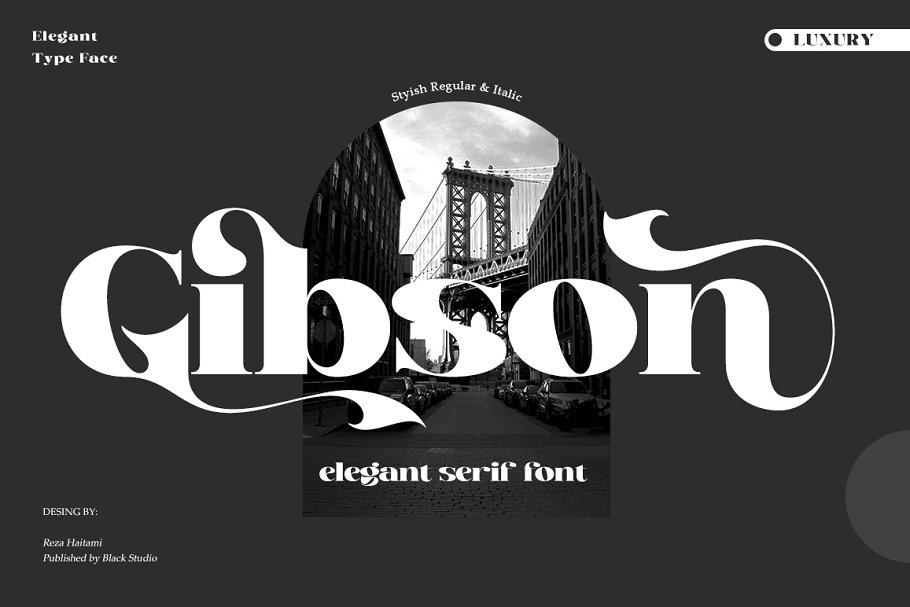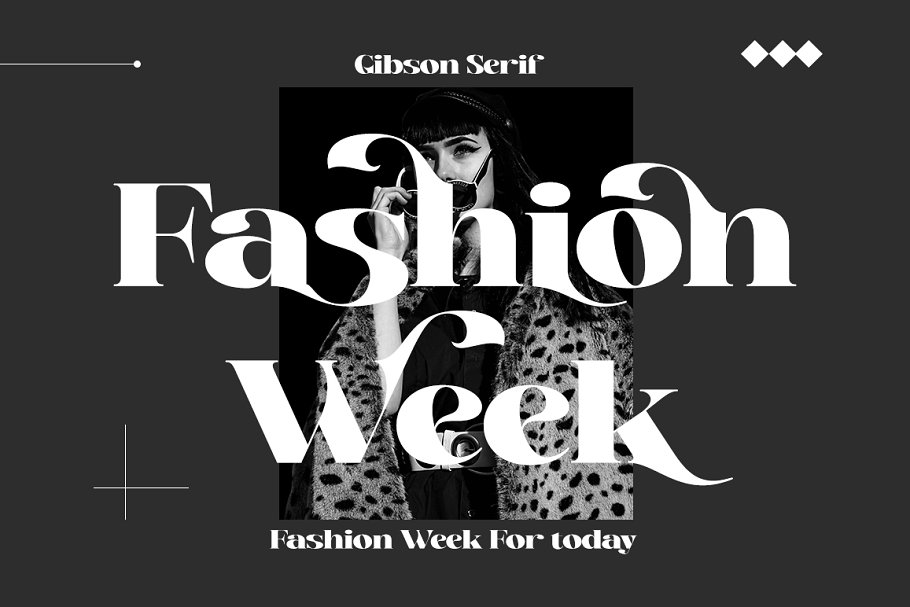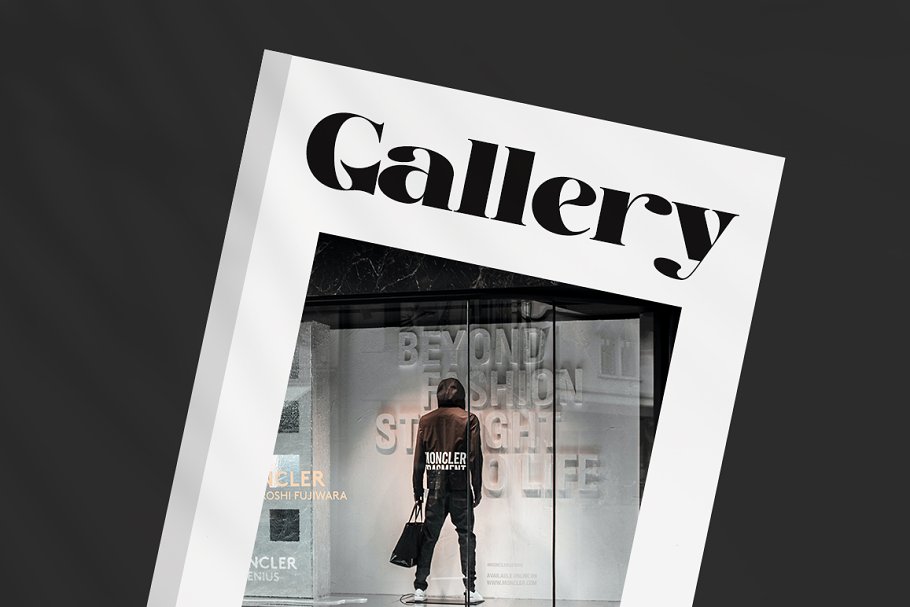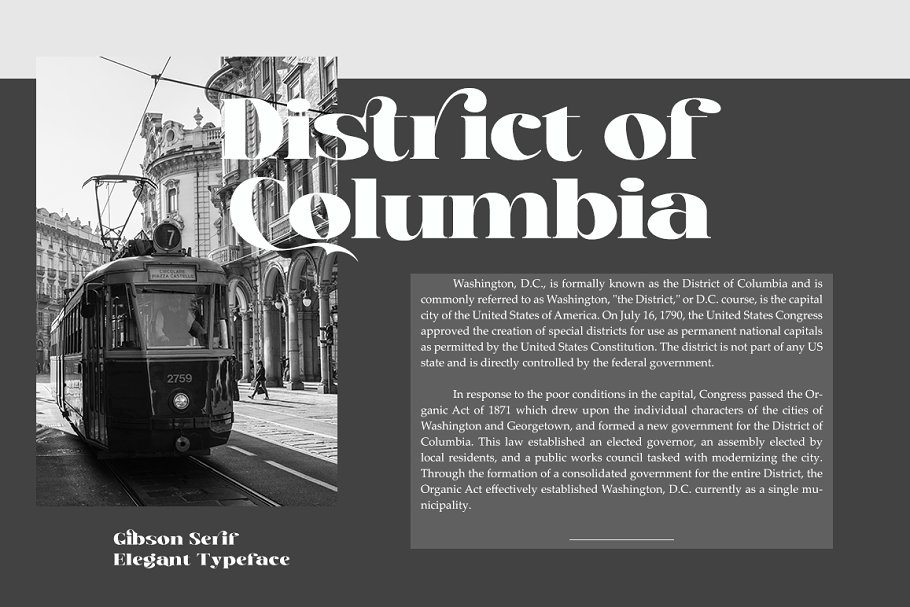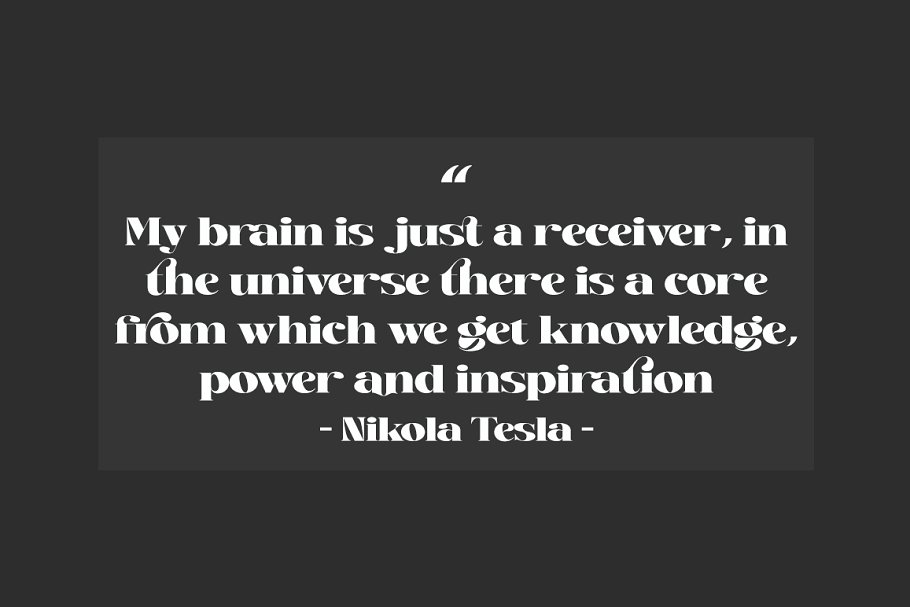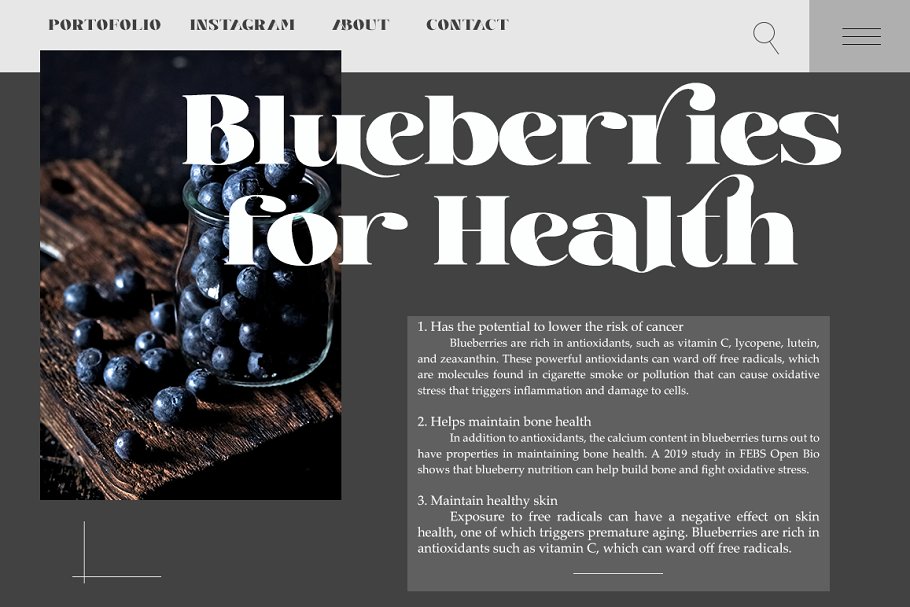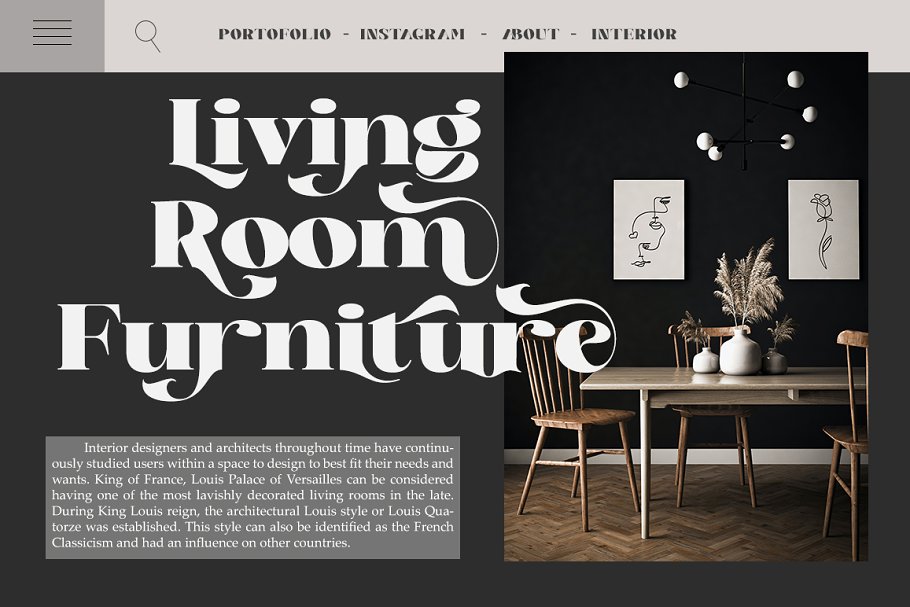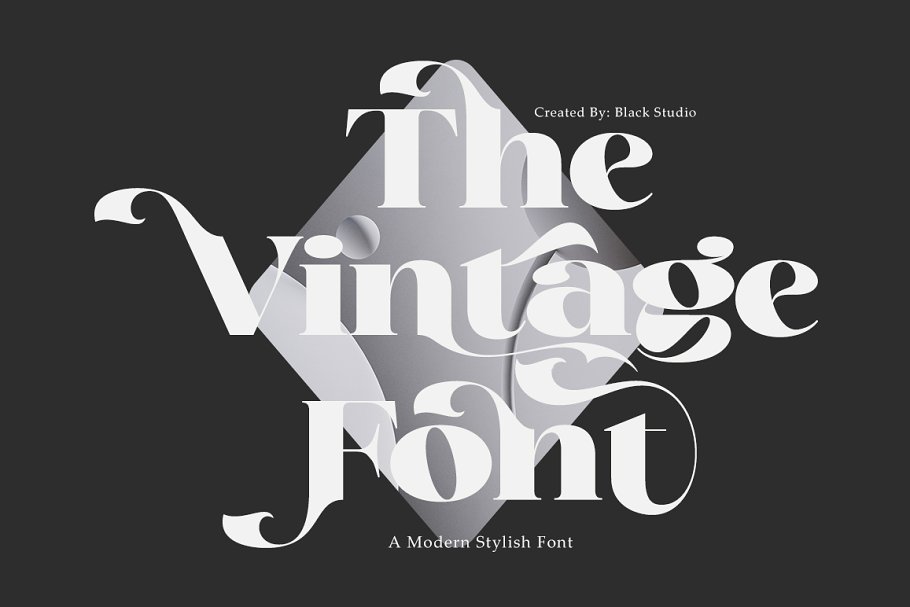
About the Gibson Serif
Introducing, Gibson Serif is a serif typeface crafted with elegance and luxury, exuding femininity and glamor but also a side of beauty with plenty of alternatives and ties to help you create endless variations for your creative needs, Its striking contrasts and subtle details, along with luxurious strokes and voluptuous curves, create a beautiful and powerful statement for any typographic composition, blending glamor with contemporary aesthetics
Gibson Serif elegant serifs really help you create unlimited variations for your creative needs in creating your project titles: such as fashion, magazines, logos, branding, photography, invitations, wedding invitations, quotes, blog headers, posters, advertisements, postcards, books , websites, etc